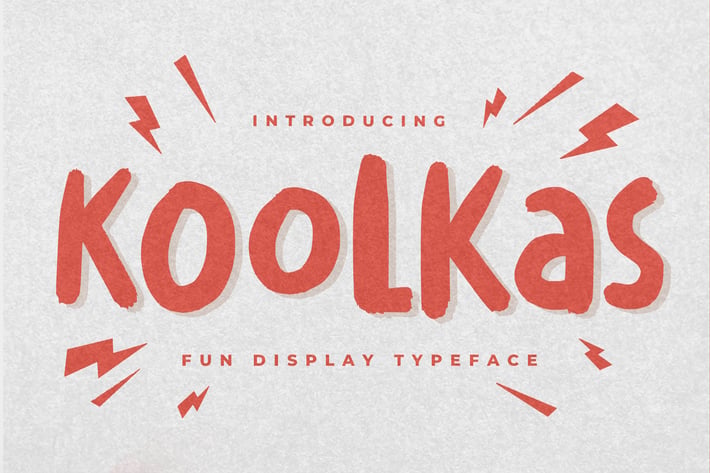
Koolkas - Fun Display Typeface
Hello Everyone, introduce our new product, Koolkas is a Fun Display Typeface. This is a Textured Natural Style and classy style with a clear style and dramatic movement.
This font Koolkas is great for your next creative project, such as logos, printed quotes, invitations, cards, product packaging, headers, Logotype, Letterhead, Posters, or Design. This font is great for your creative projects, such as watermark on photography, and perfect for logos & branding, invitation, advertisements, product designs, stationery, wedding designs, label, product packaging, special events, or anything that needs handwriting taste.
That it has charming, authentic, and relaxed characteristics more natural look to your text.